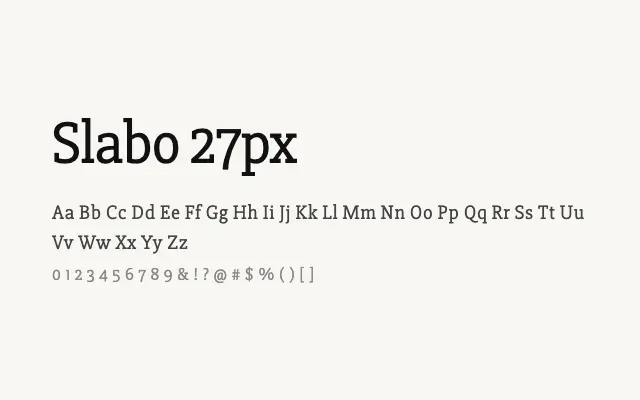
Slabo 27px
A companion serif to Slabo 13px, optimised specifically for rendering at 27 pixels on screen with assured legibility.
Slabo 27px occupies a slightly larger niche than its sibling, working well as a screen subheading or medium-sized body text at its target size. Designed by John Hudson, it applies the same rigorous pixel-targeted logic to produce a typeface that performs reliably in digital contexts without generalising across sizes. It suits editorial web design and UI components where consistent 27px sizing is part of a design system.
Slabo 27px follows the same philosophy as its sibling, but tuned for rendering at 27 pixels, giving it slightly more expressive letterforms that remain tightly controlled for on-screen use. It shares the same design logic of pixel-size specificity.